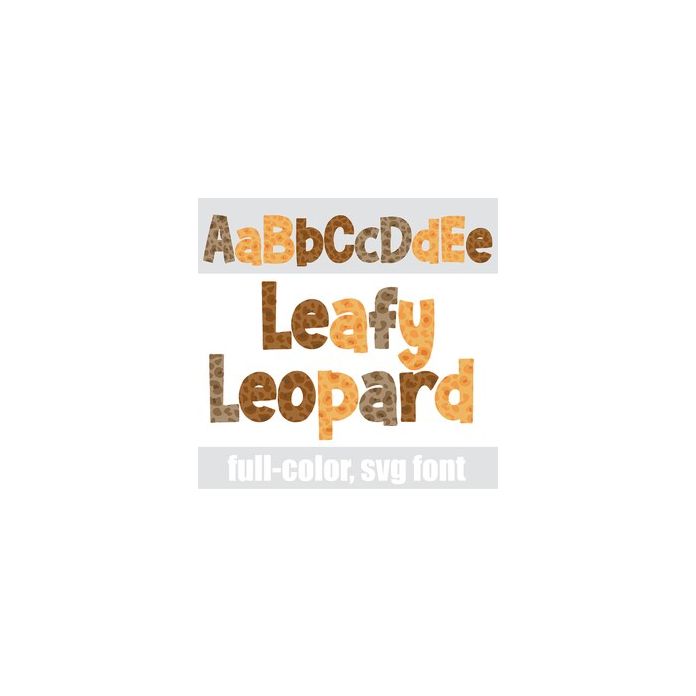
This full-color font features an autumn color palette on leopard print lettering. There is an alt case w/ additional colors you can access through your system or Silhouette's glyph map.